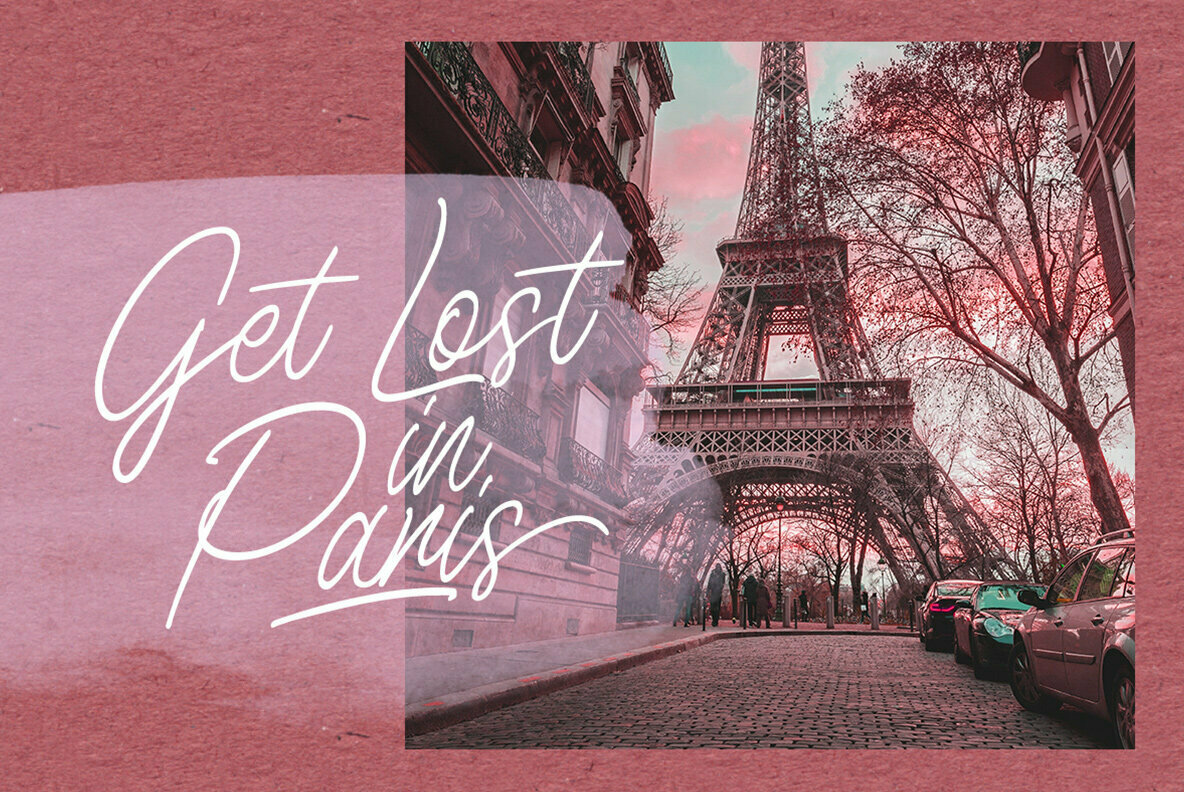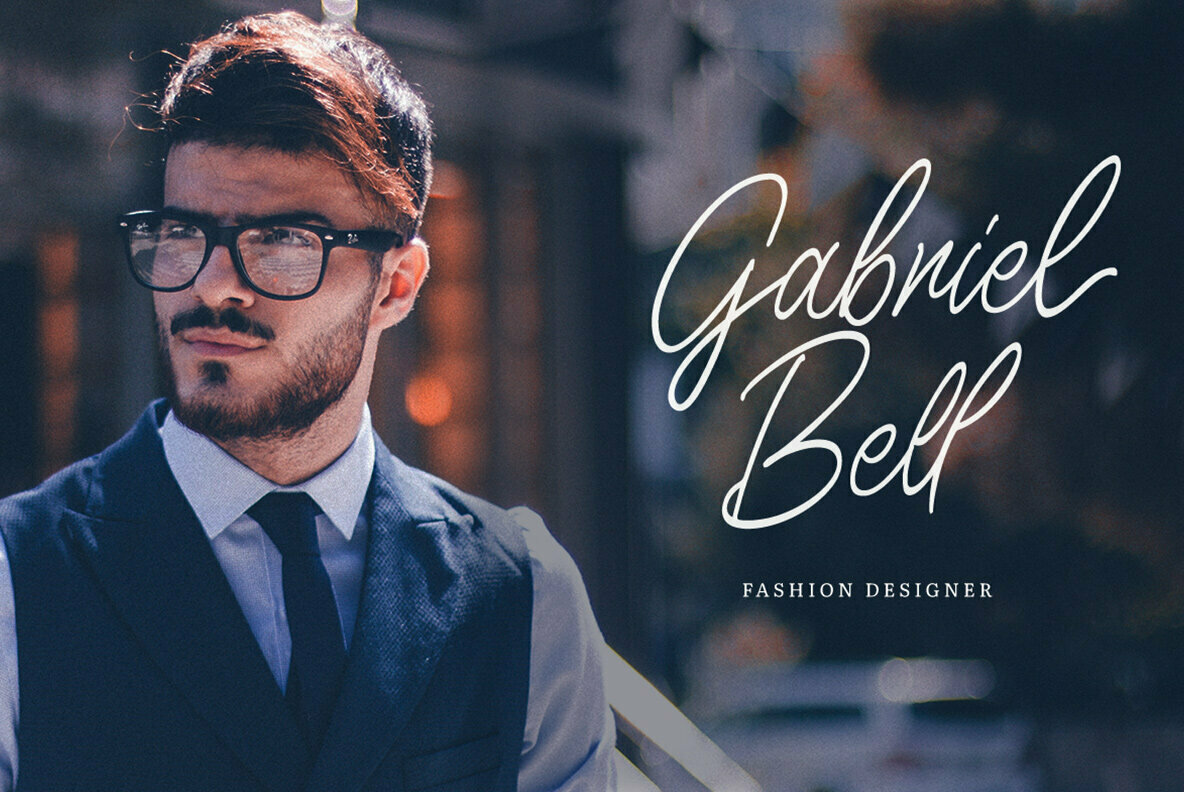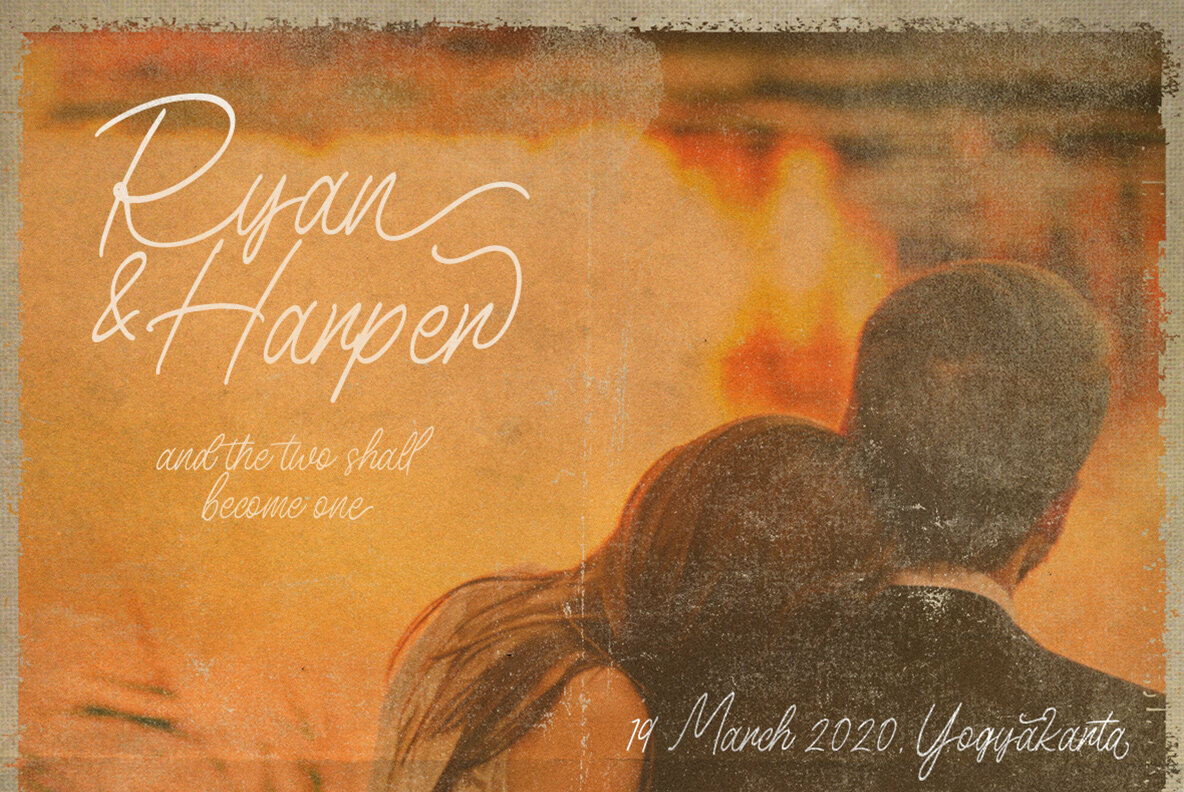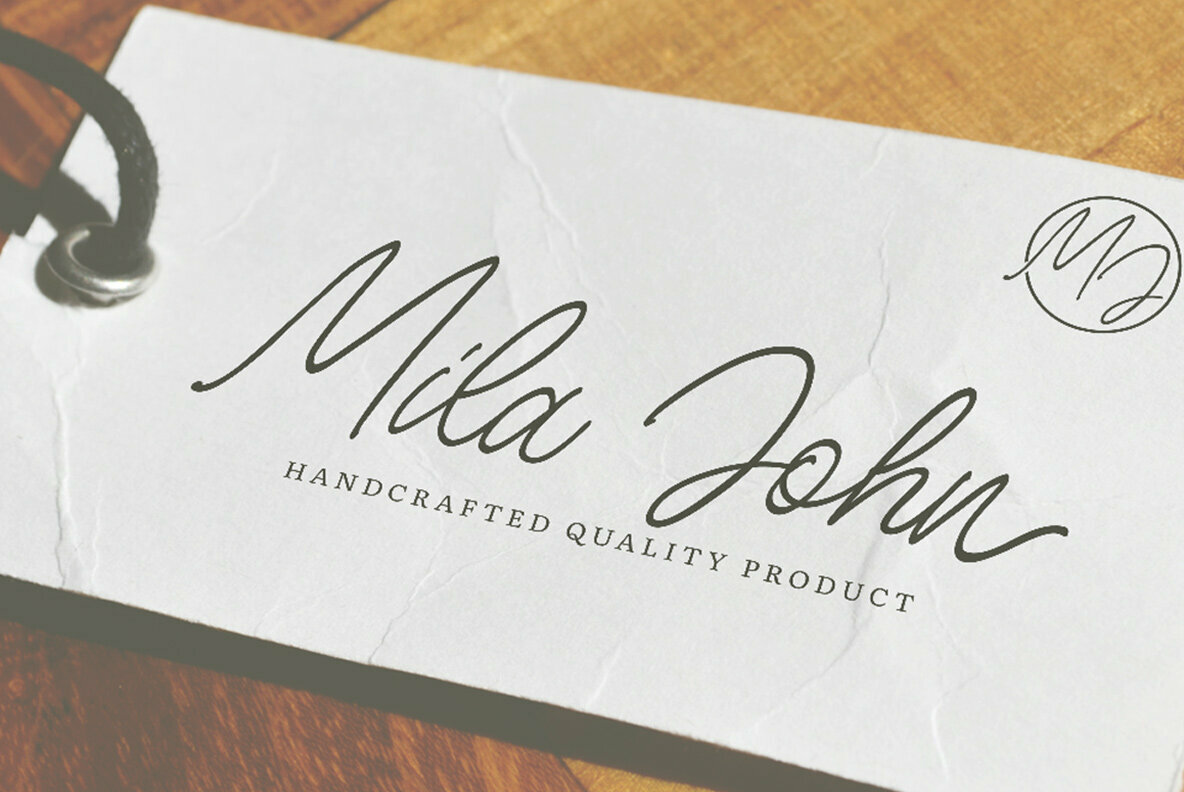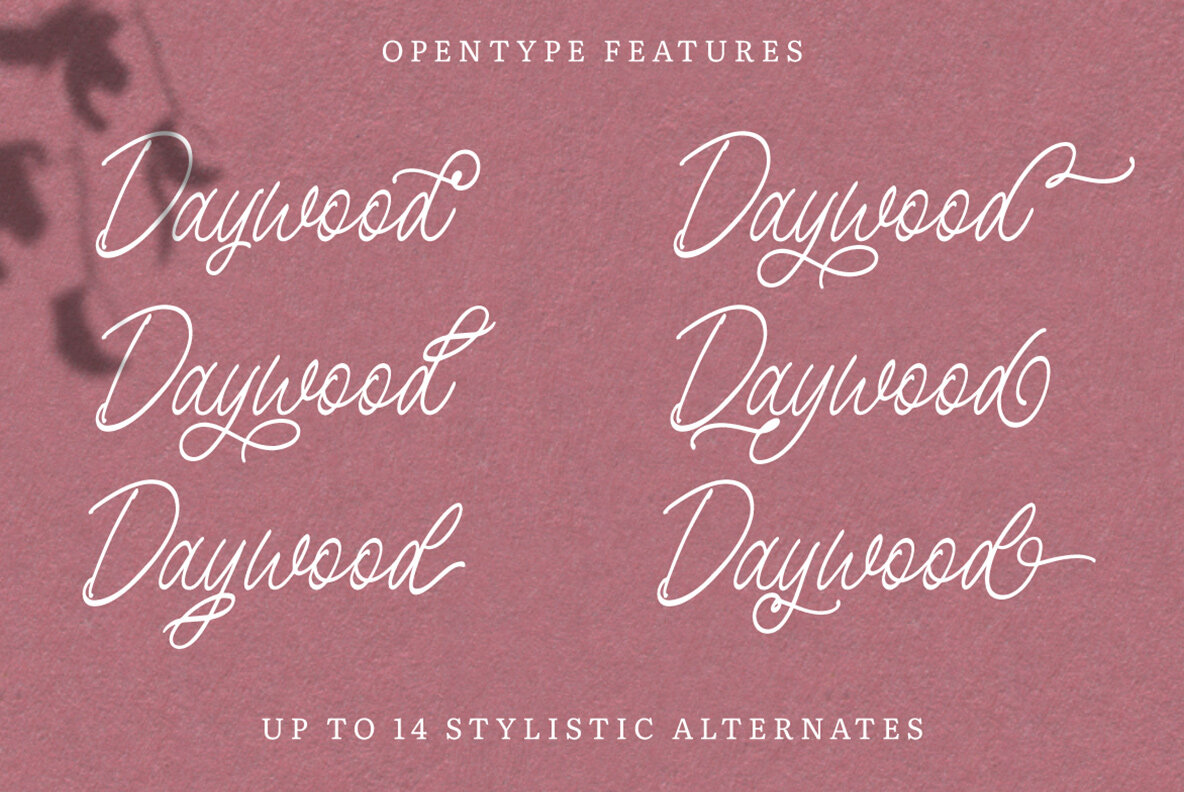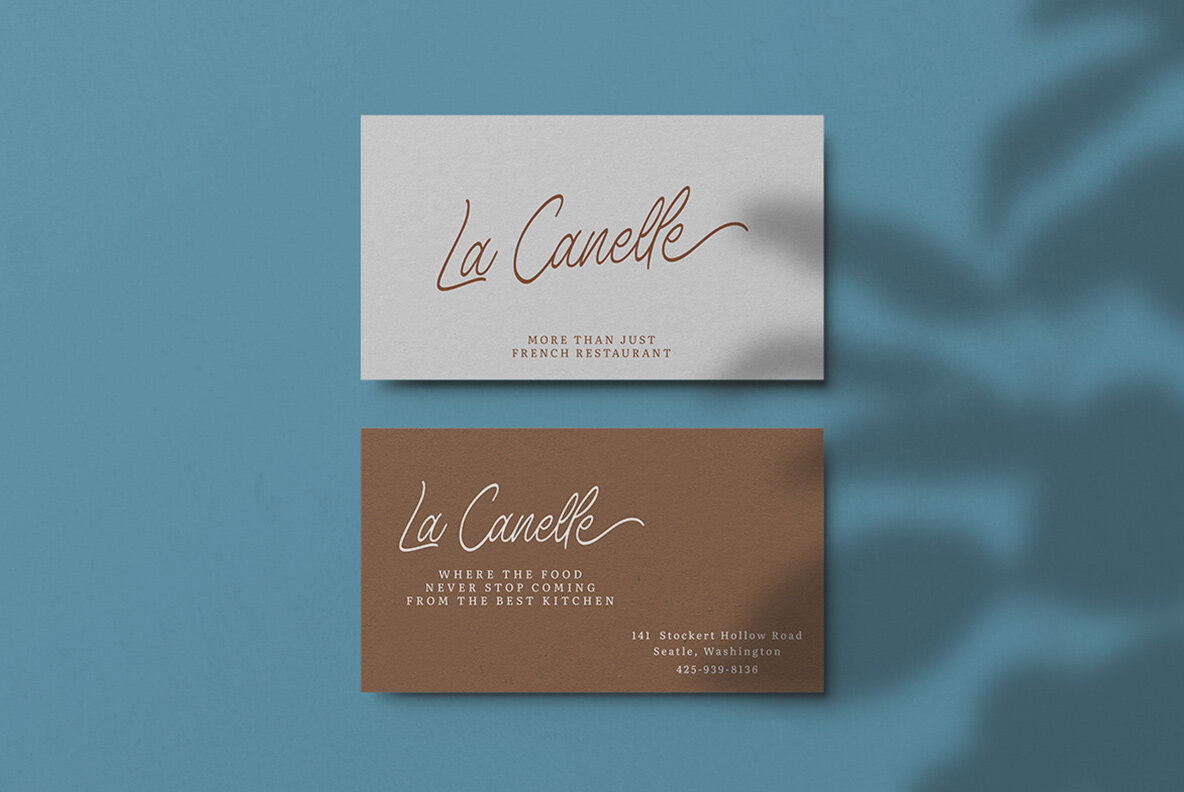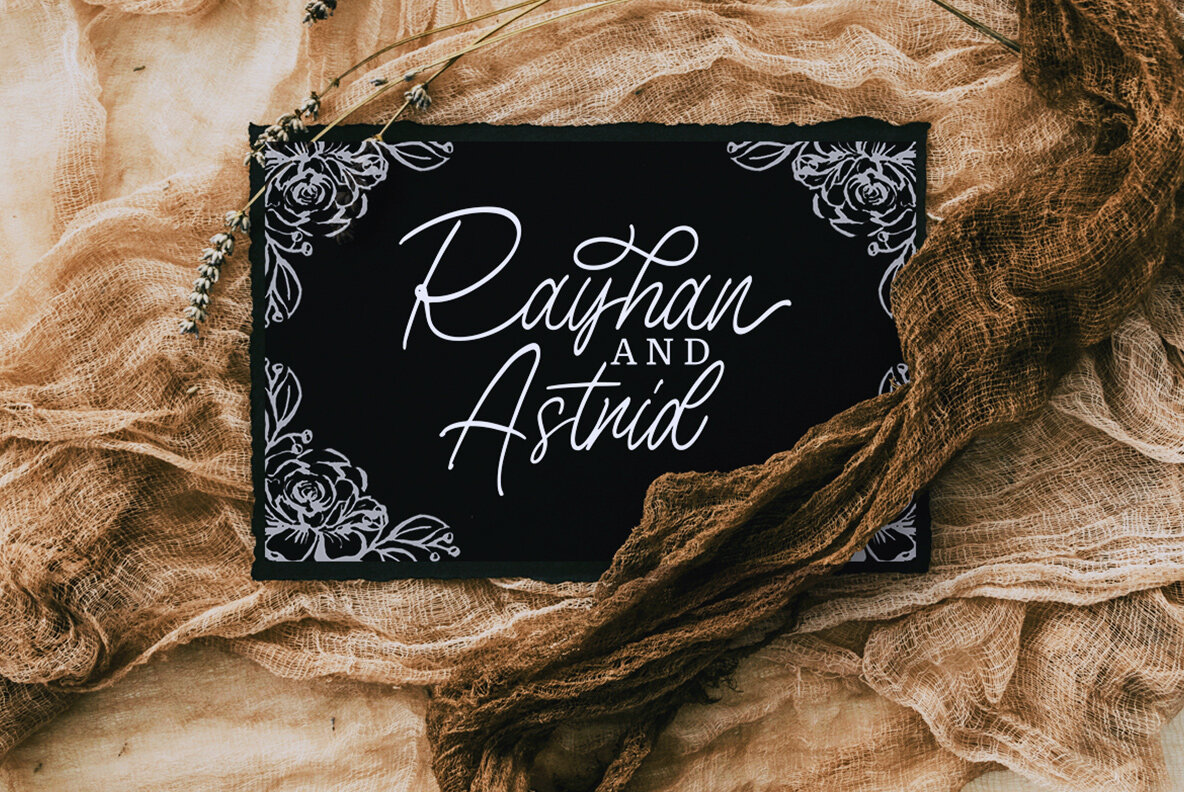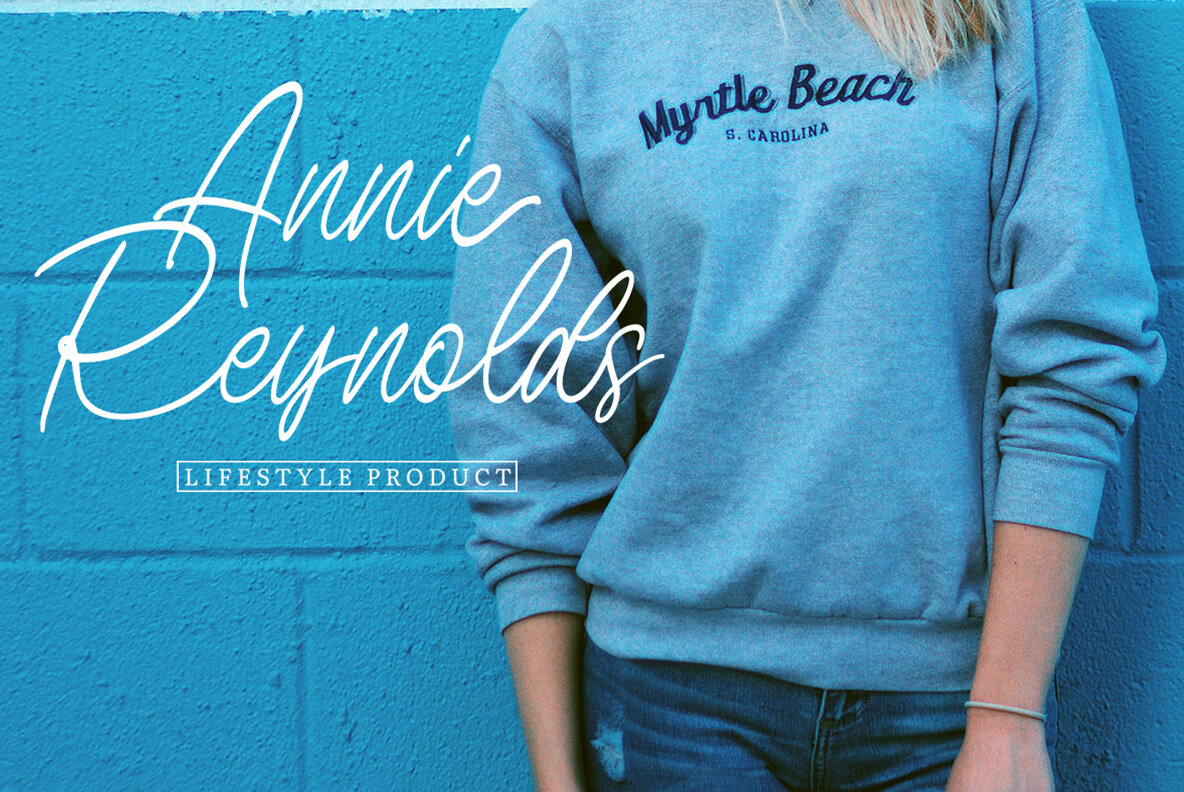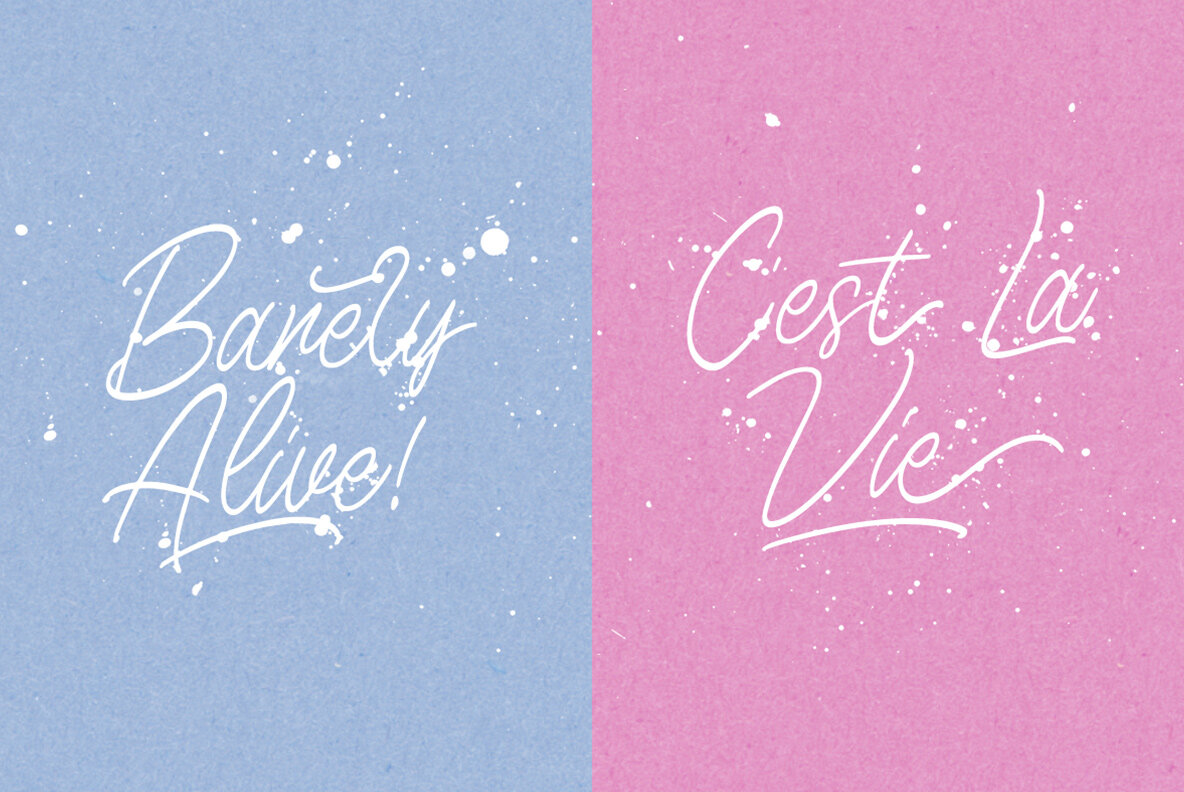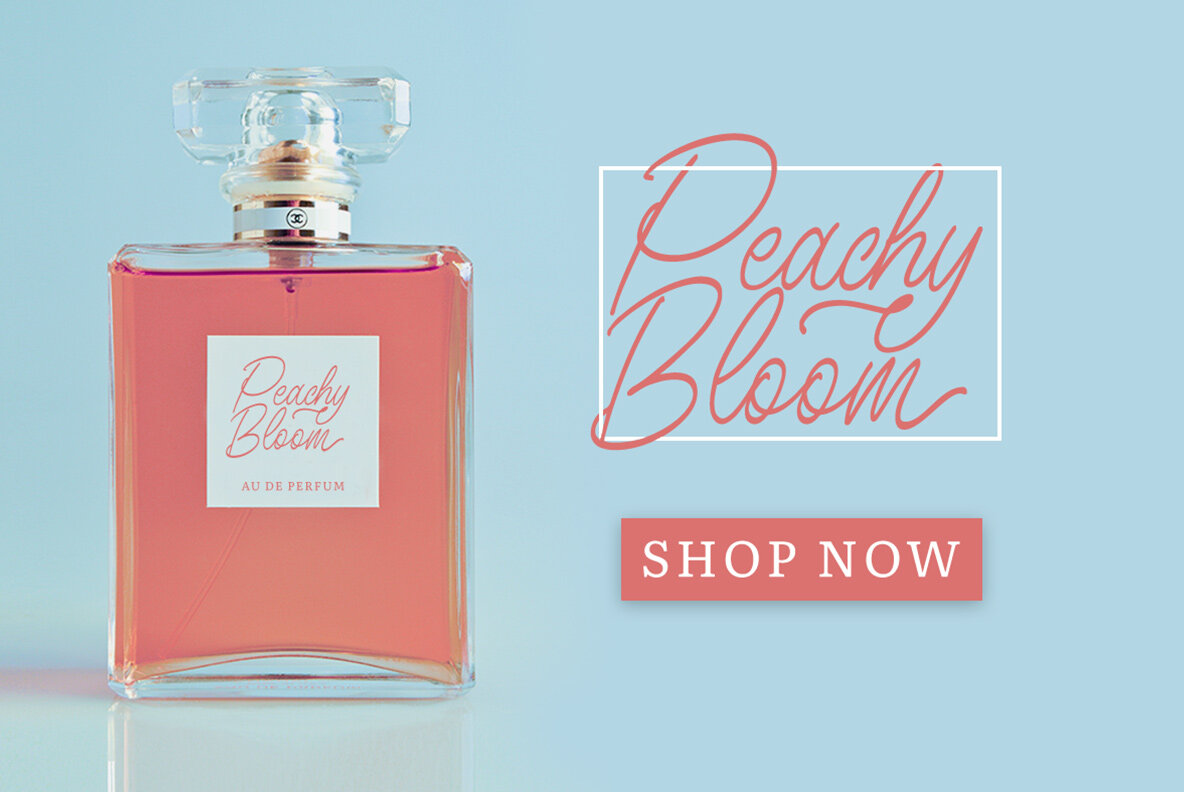
Birdspring Signature Font
Birdspring Signature Regular
Birdspring Signature is a handwriting font that stands out with its strong character, making it ideal for a variety of applications. Whether you're crafting elements for branding, designing elegant wedding invitations, or creating striking packaging, this font adapts seamlessly to your needs.Birdspring Signature: Distinct Handwriting Style